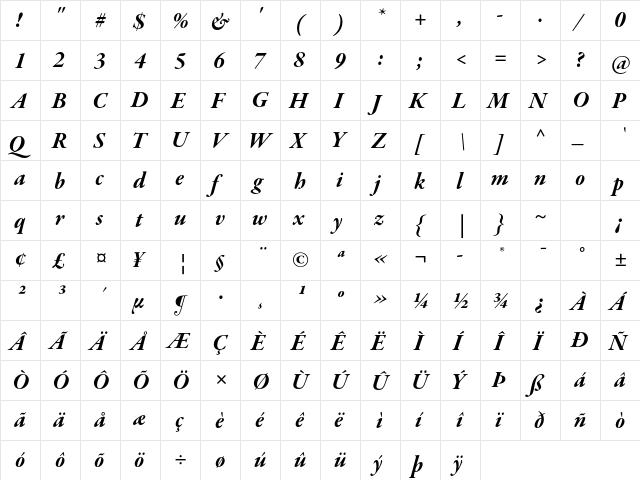
Garamond Premier Pro Bold Italic Subhead Font Preview
| Designer | Robert Slimbach |
Design Context for Garamond Premier Pro Typeface
Garamond Premier Pro is a composed and adaptable typeface that performs quietly and consistently across a wide range of design contexts. The dynamic lean of this cut emphasises speed and emphasis in any layout. Its bold stroke weight gives it real presence on the page.
Pro Tip: Try Garamond Premier Pro for annotation and caption copy alongside an upright companion — the contrast in angle creates a dynamic but ordered typographic system.